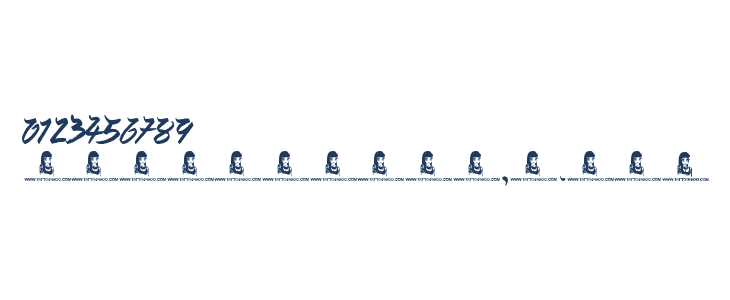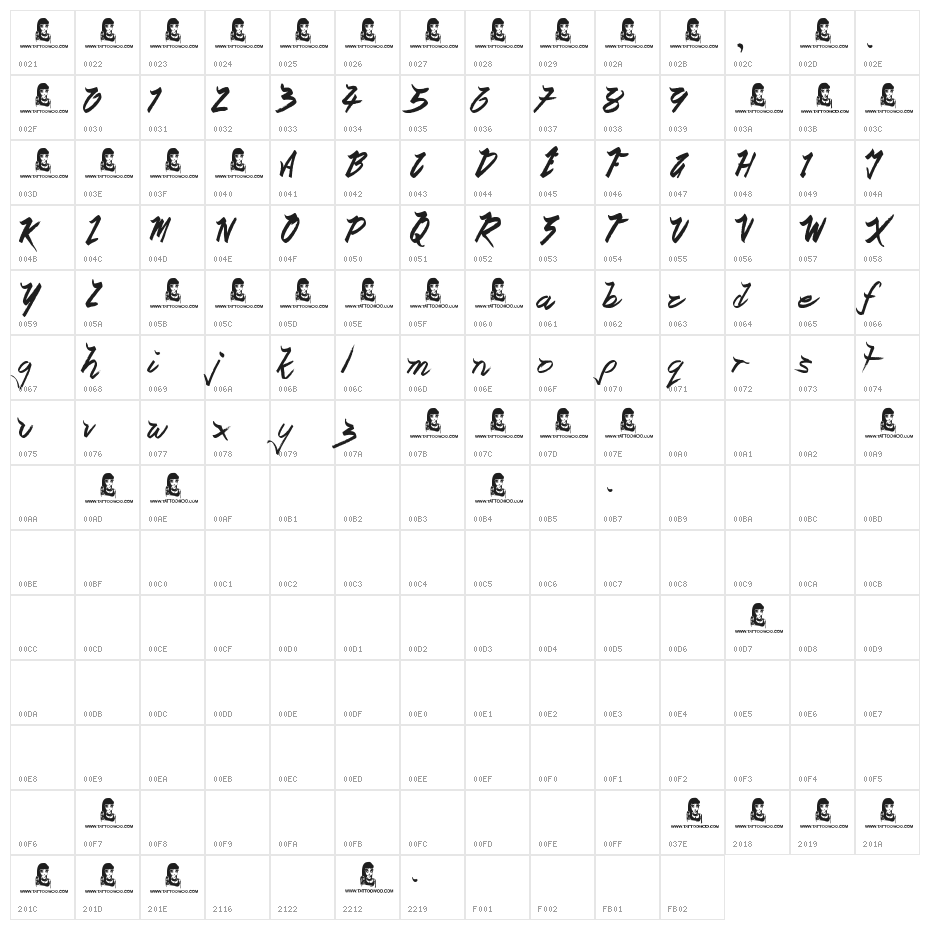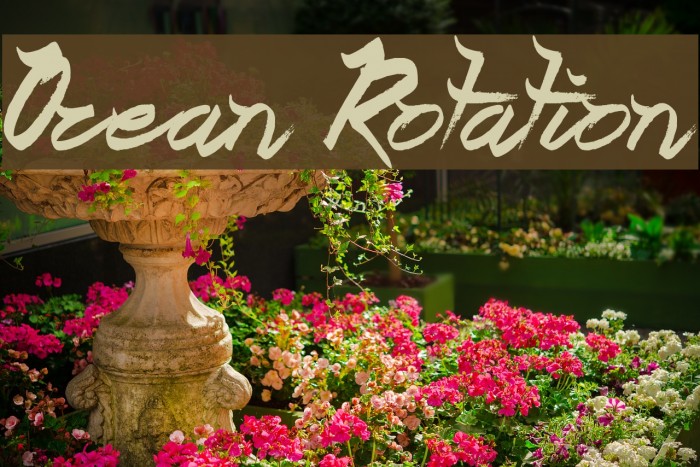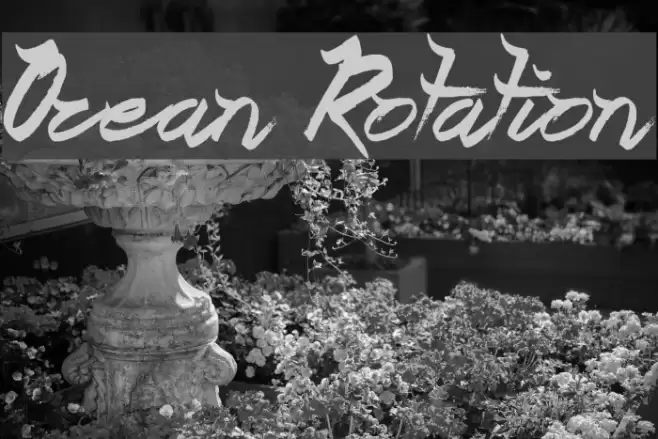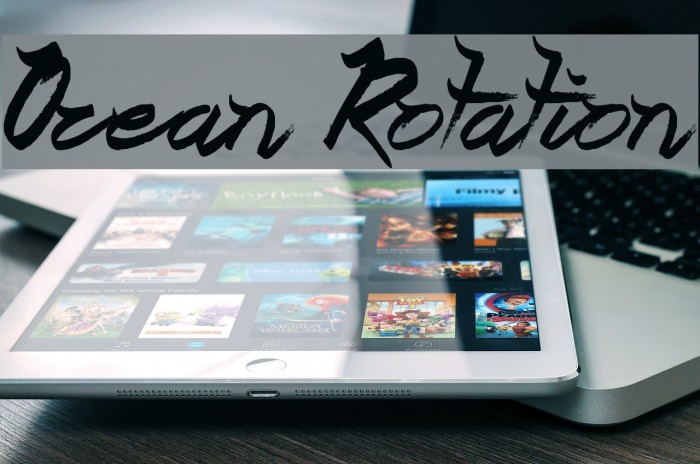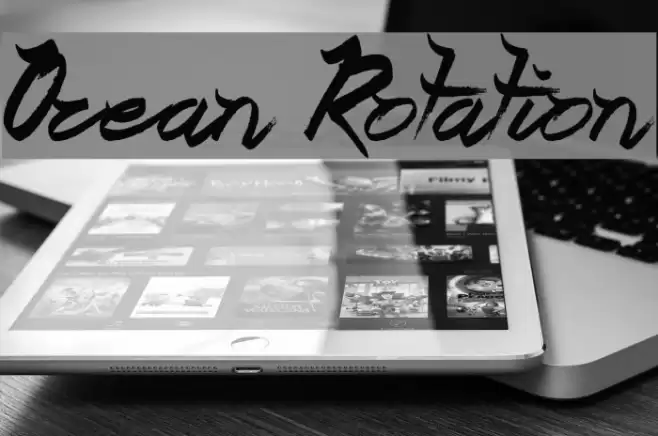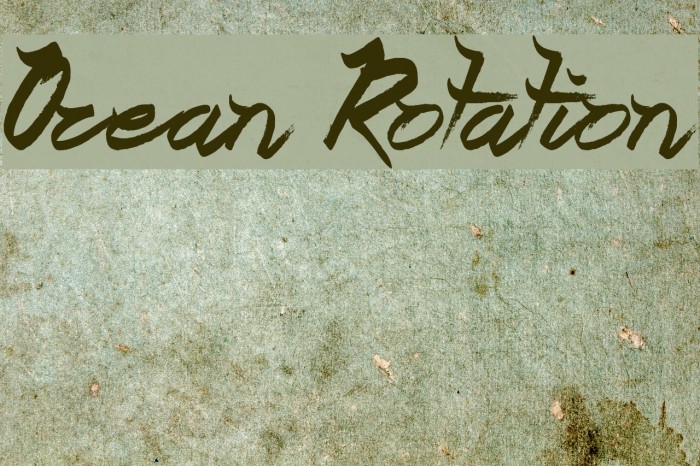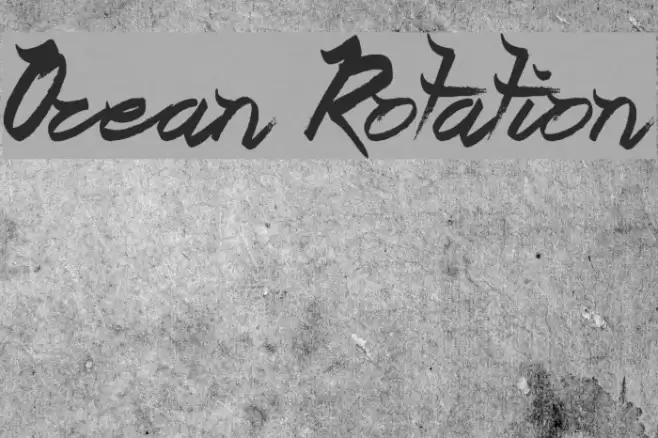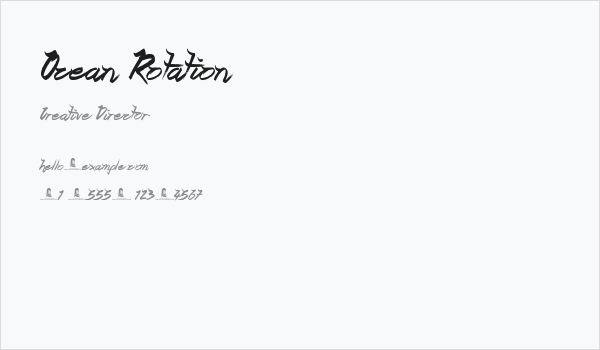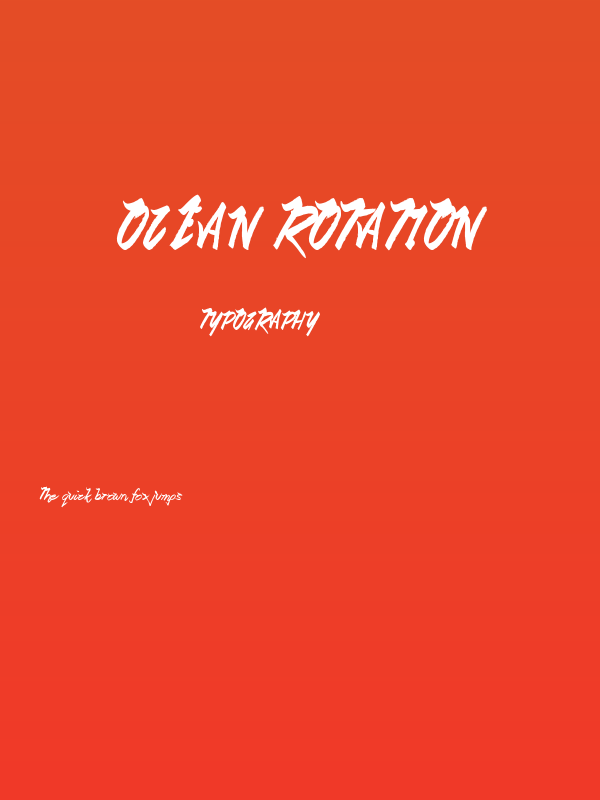
Ocean Rotation Font
Ocean Rotation Description
This font features a bold and expressive brush script style, characterized by its dynamic strokes and fluid motion. The letters are crafted with a sense of movement, giving them an energetic and artistic appearance. The uppercase and lowercase letters maintain a consistent flow, with some characters exhibiting unique flourishes that add to the overall aesthetic. The numbers and special characters are designed to complement the alphabet, maintaining the same brush-like quality. This font exudes a sense of creativity and spontaneity, making it ideal for projects that require a personal and artistic touch.